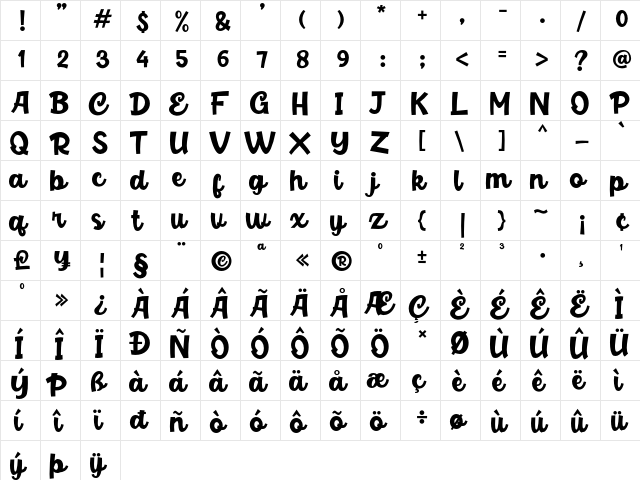
Balina Regular
Design Context for Balina Typeface
Balina is a composed and adaptable typeface that performs quietly and consistently across a wide range of design contexts.